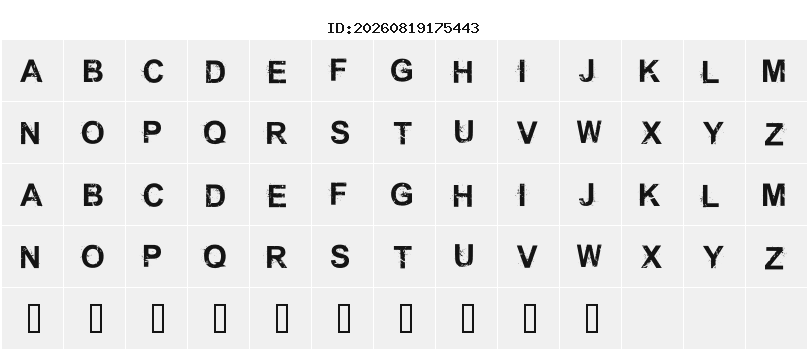
• Font Name: Shrapnel
• Designer: Chris Vile
• Manufacturer: Fonts by GKDN
• Description: Shrapnel is a font by Fonts by GKDN, designed by Chris Vile in 2013.
About Shrapnel.otf
Shrapnel.otf is a modern, elegant sans-serif font designed for ultimate readability and visual harmony. Perfect for branding, headlines, web design, and print materials.